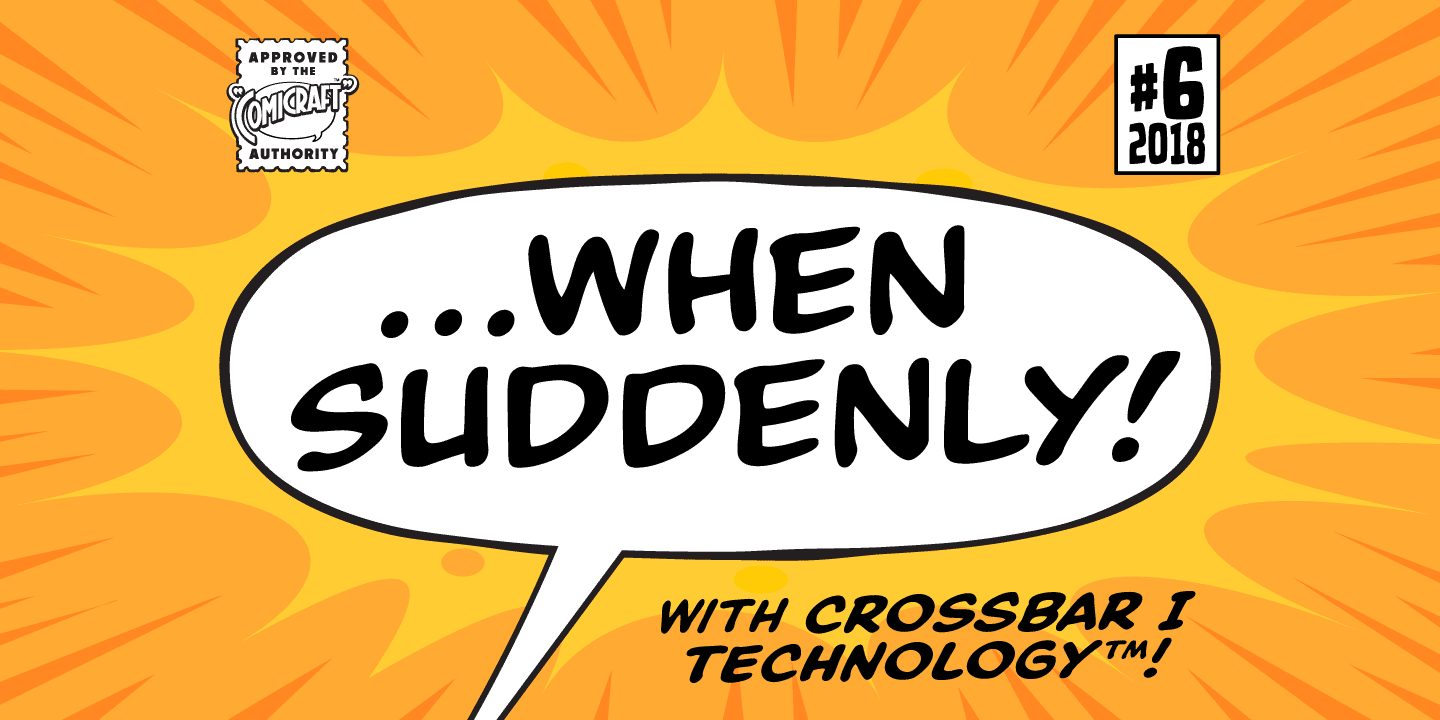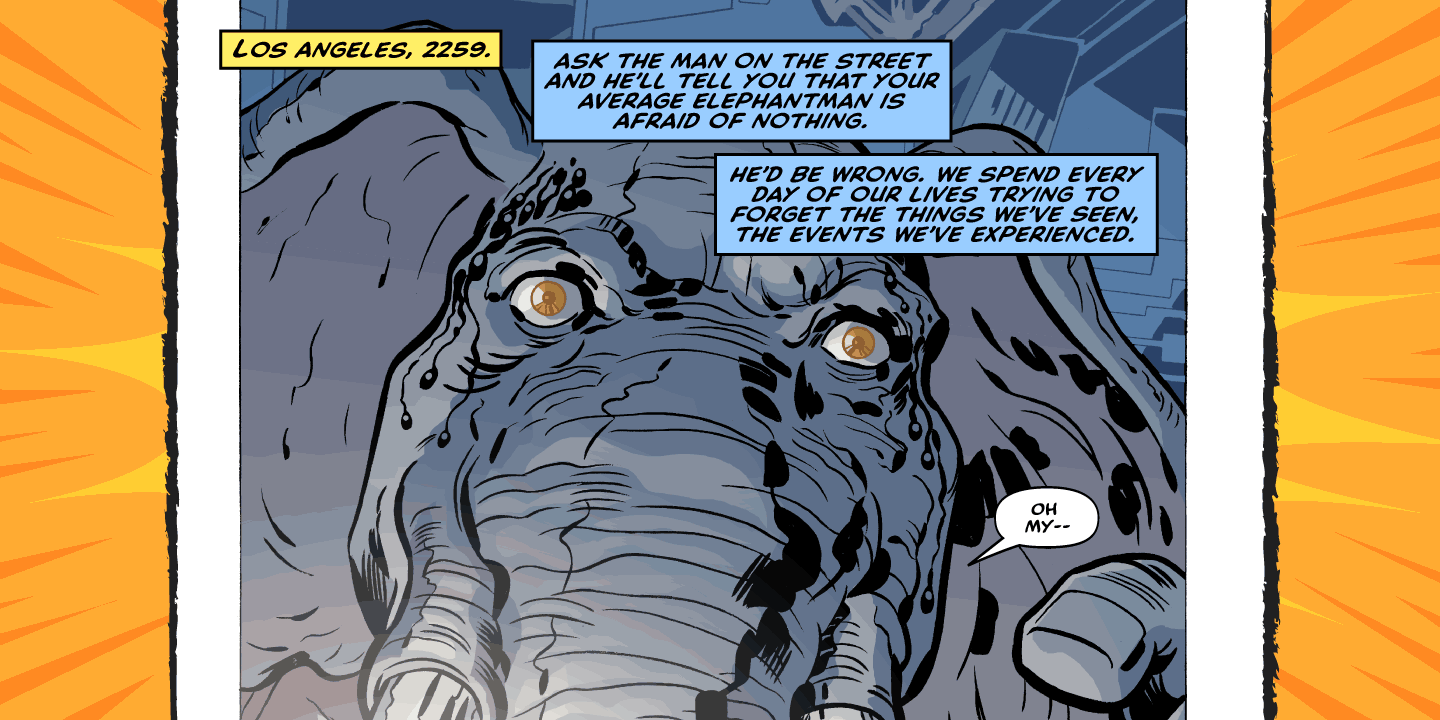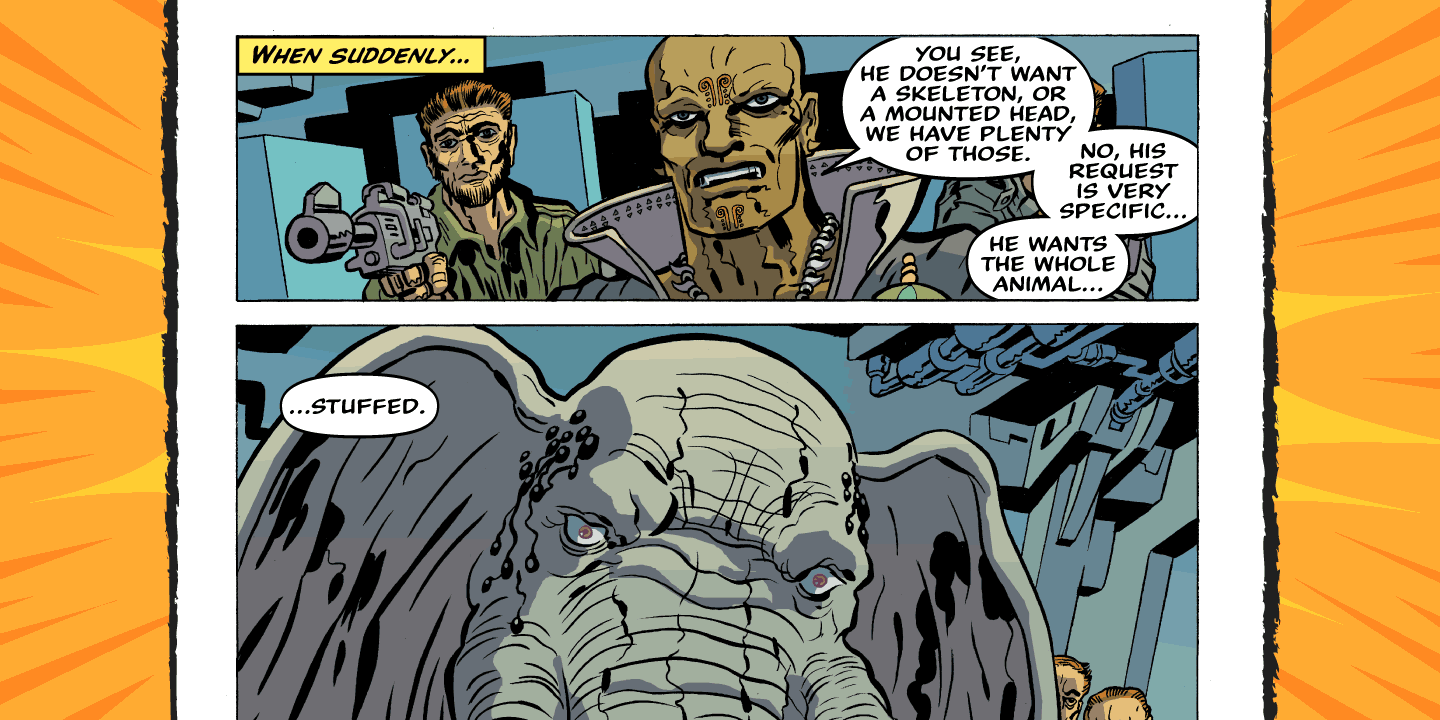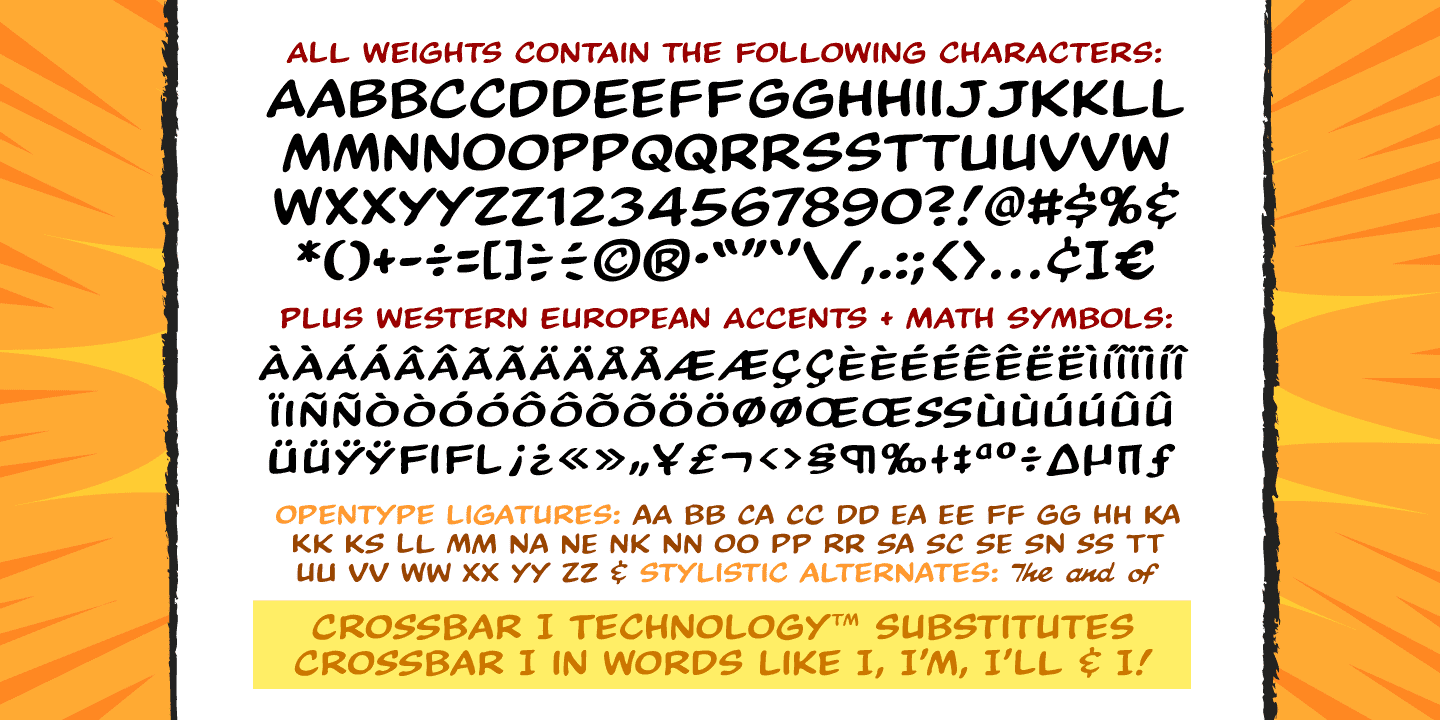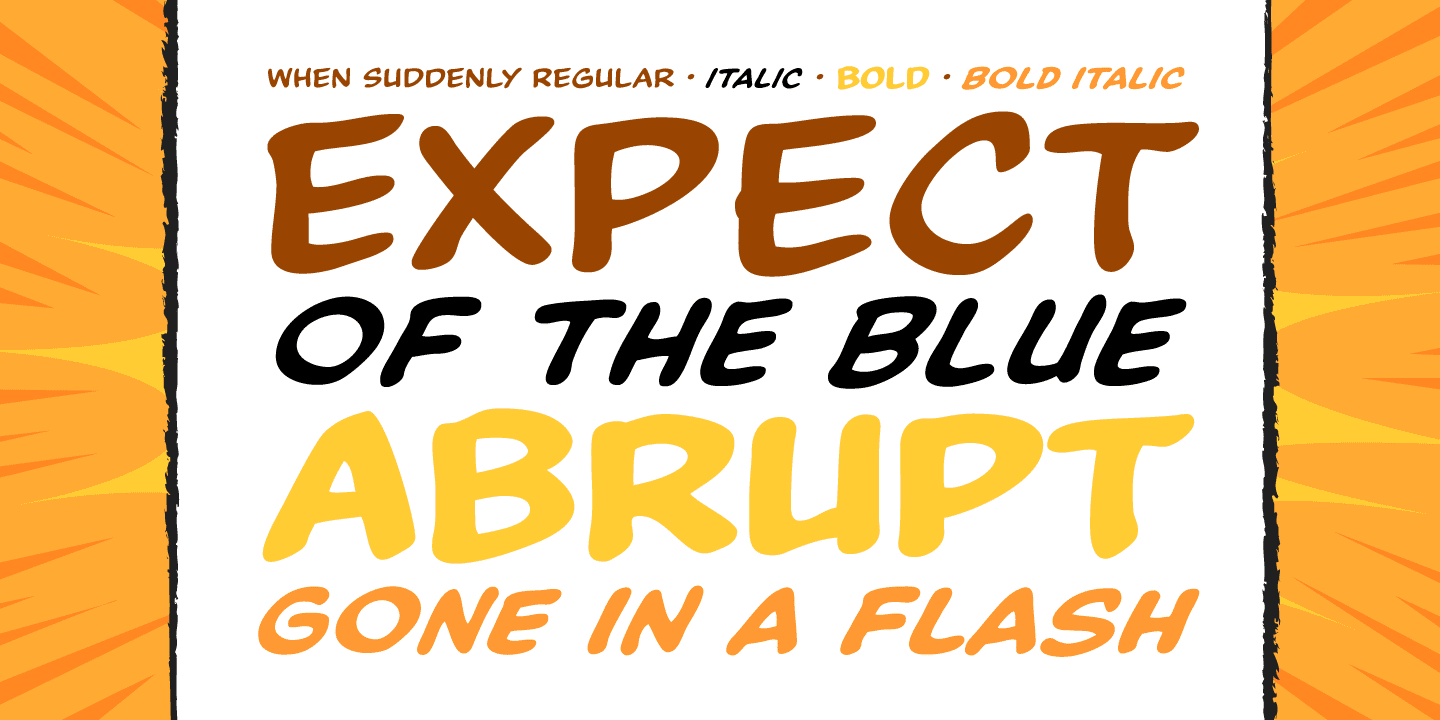
When Suddenly
Buy NowFrom completely OUT OF THE BLUE, here's a font you'll need when, unexpectedly -- with a sense of immediate urgency -- your characters abruptly call out without warning and on the spur of the moment! When Suddenly 's prompt! It's abrupt! It responds in a flash! Now you can put all the words you need in your comic book in such a way that they'll come as a complete surprise to all your readers!
When Suddenly is BOLD! It's ITALIC it's anything but REGULAR!